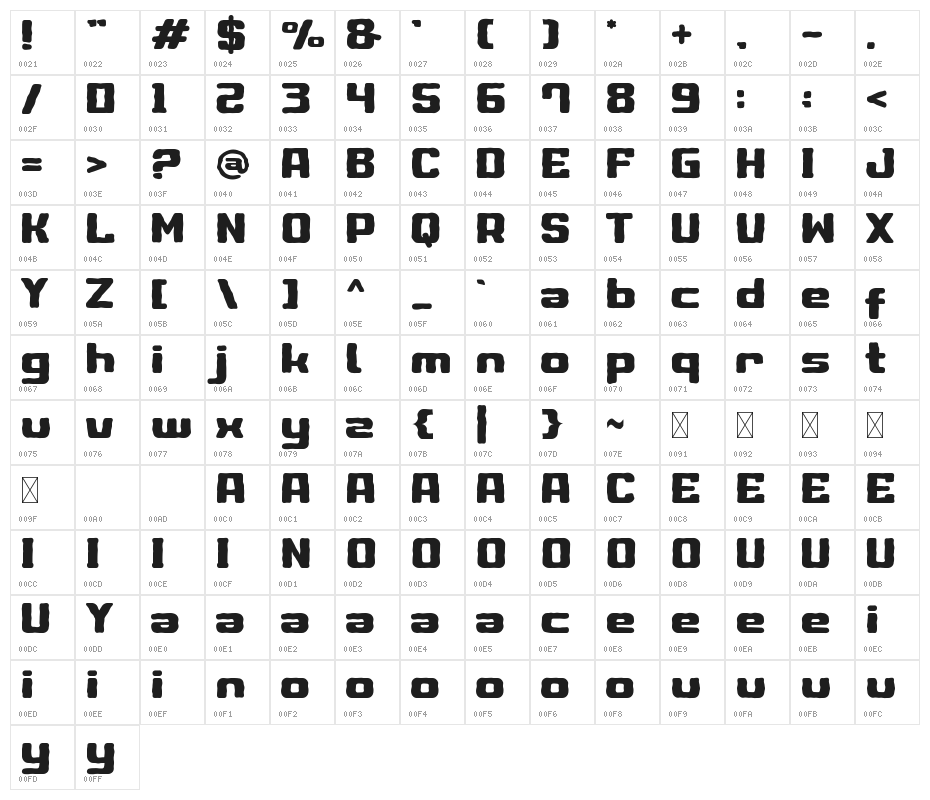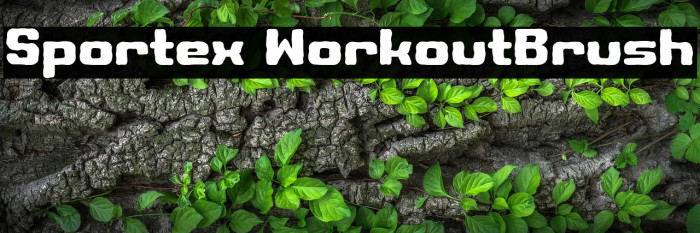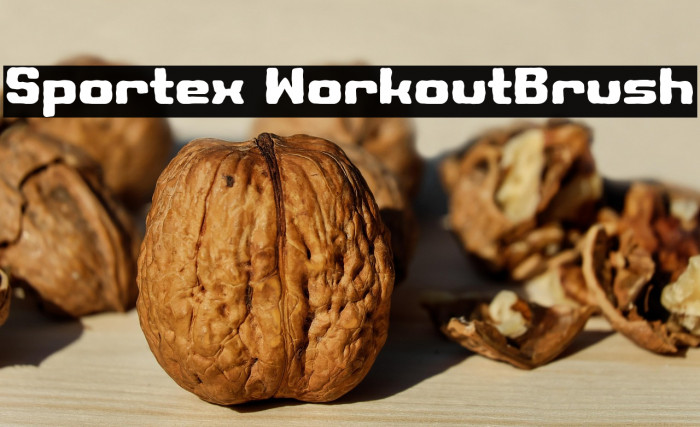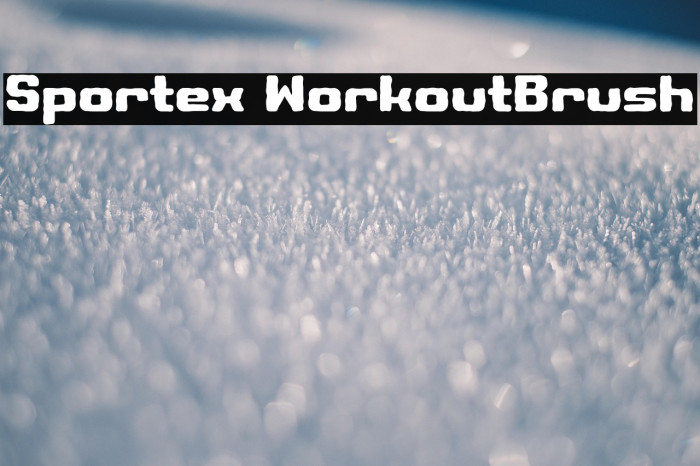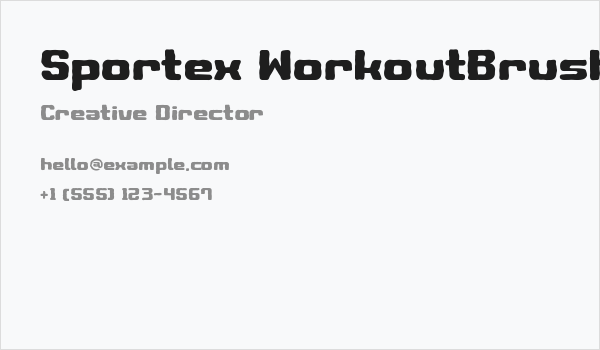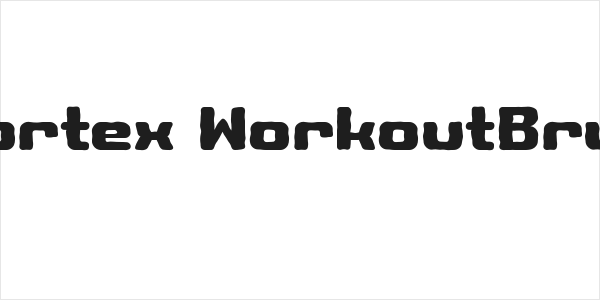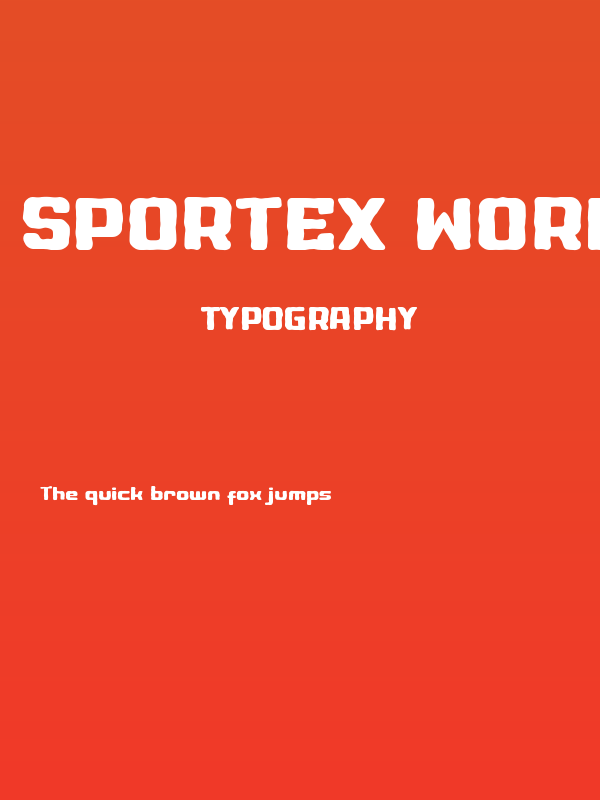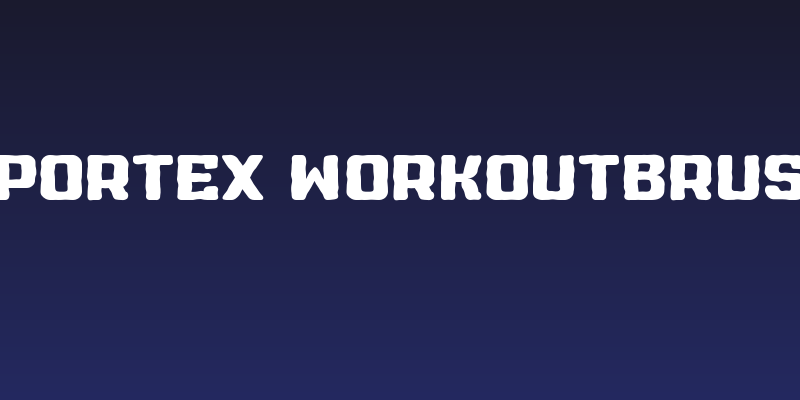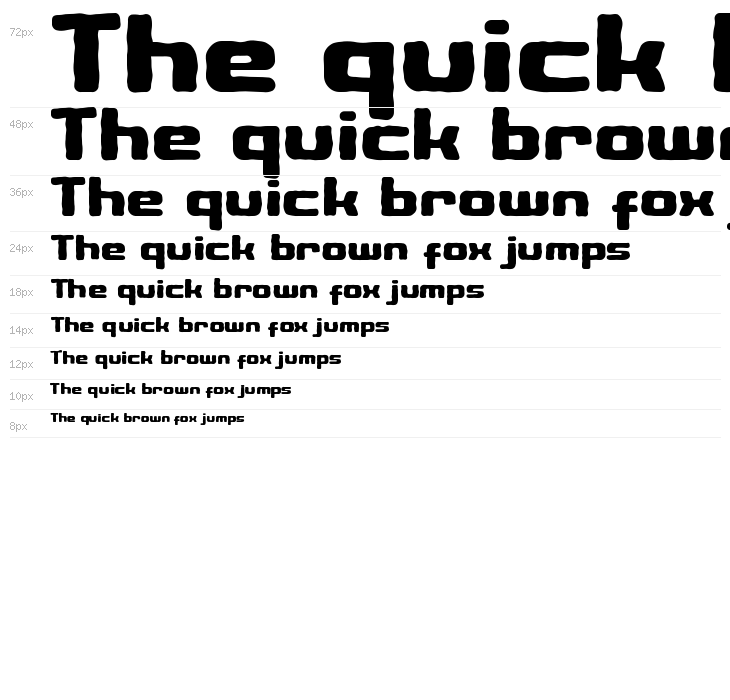
Sportex WorkoutBrush Font
Sportex WorkoutBrush Description
This font features a bold and dynamic brush style, characterized by its thick, rounded strokes that convey a sense of energy and movement. The letters have a slightly irregular, hand-drawn appearance, adding a personal and informal touch. The uppercase and lowercase letters maintain a consistent weight, while the numbers and special characters follow the same robust design. The overall look is both sporty and artistic, making it suitable for projects that require a strong visual impact.
| Proposed Projects | Ideal for sports branding, workout apparel designs, motivational posters, and dynamic event flyers. |